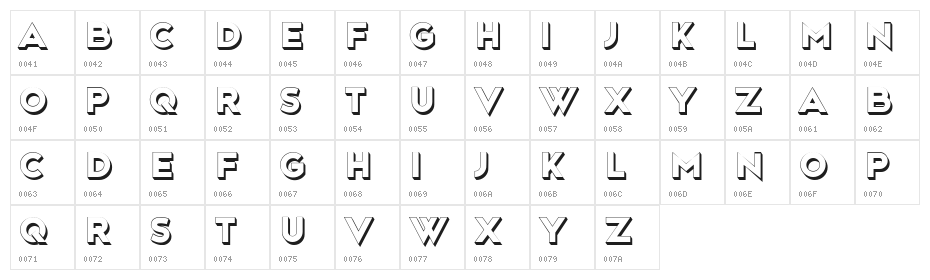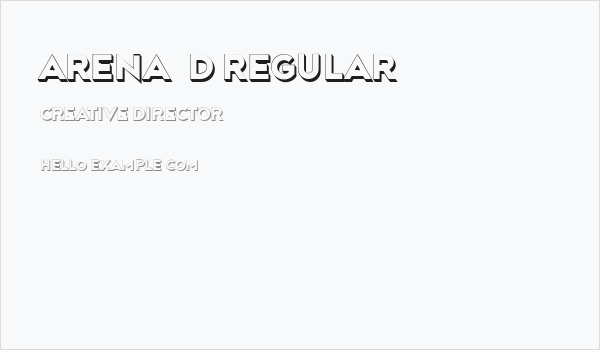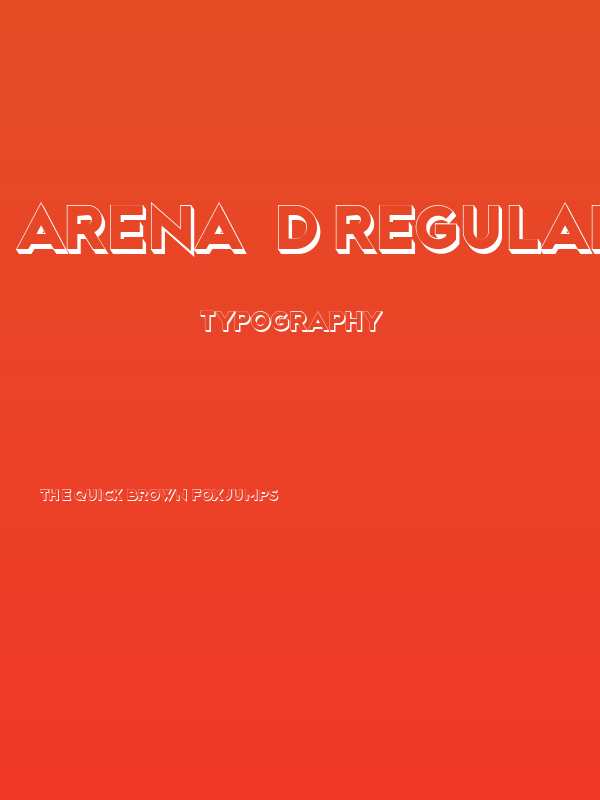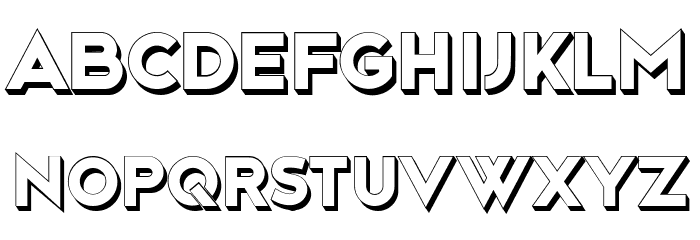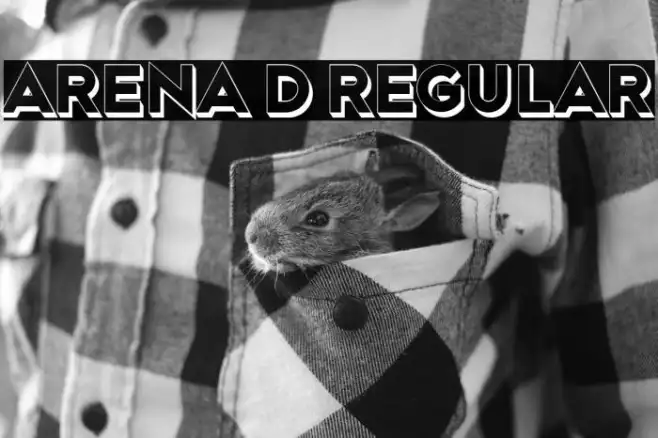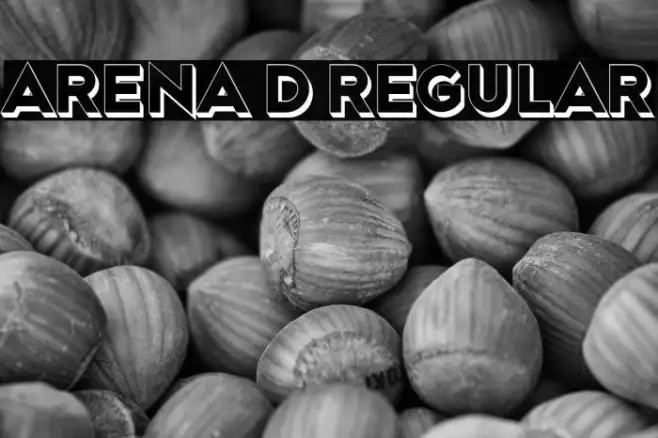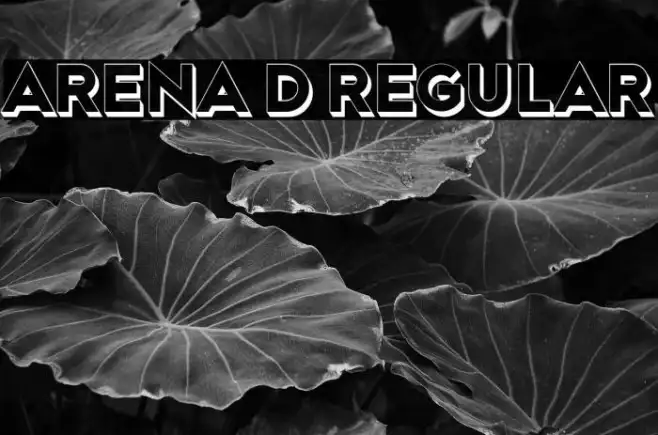
Arena 3D Regular Font
Arena 3D Regular Description
This font features a bold, three-dimensional design that gives each character a striking and impactful appearance. The letters are constructed with a solid, block-like structure, enhanced by a shadow effect that adds depth and dimension. The geometric shapes and clean lines contribute to a modern and futuristic aesthetic, making it ideal for attention-grabbing headlines and titles. The uppercase letters are consistent in height and width, maintaining a uniform look across the alphabet. The font's strong presence is further emphasized by its high contrast between the thick strokes and the shadowed outlines.
| Proposed Projects | Ideal for posters, logos, video game titles, and any project requiring a bold, futuristic aesthetic. |